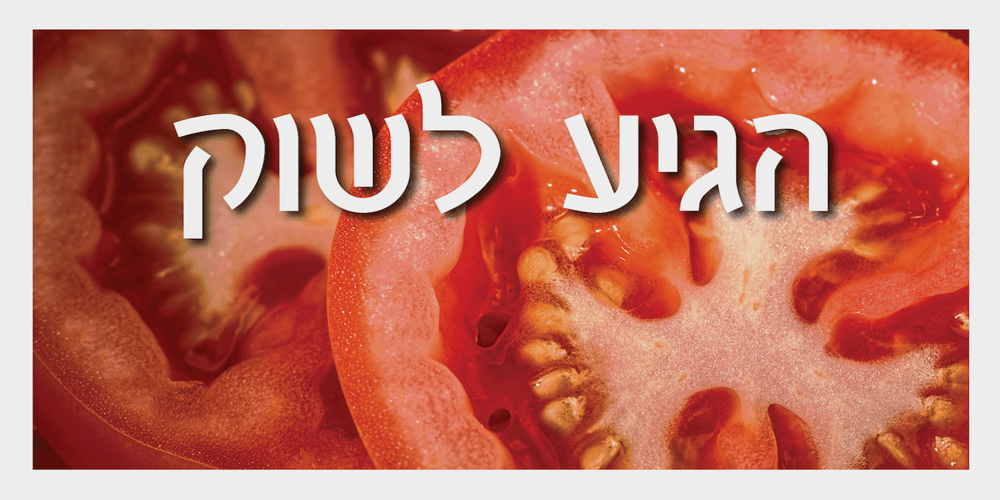
Emda MF Font Family was designed by Zvika Rosenberg and published by Masterfont. Emda MF contains 3 styles and family package options. High legibility of a fresh san serif font family, billboards or fine print – you name it.